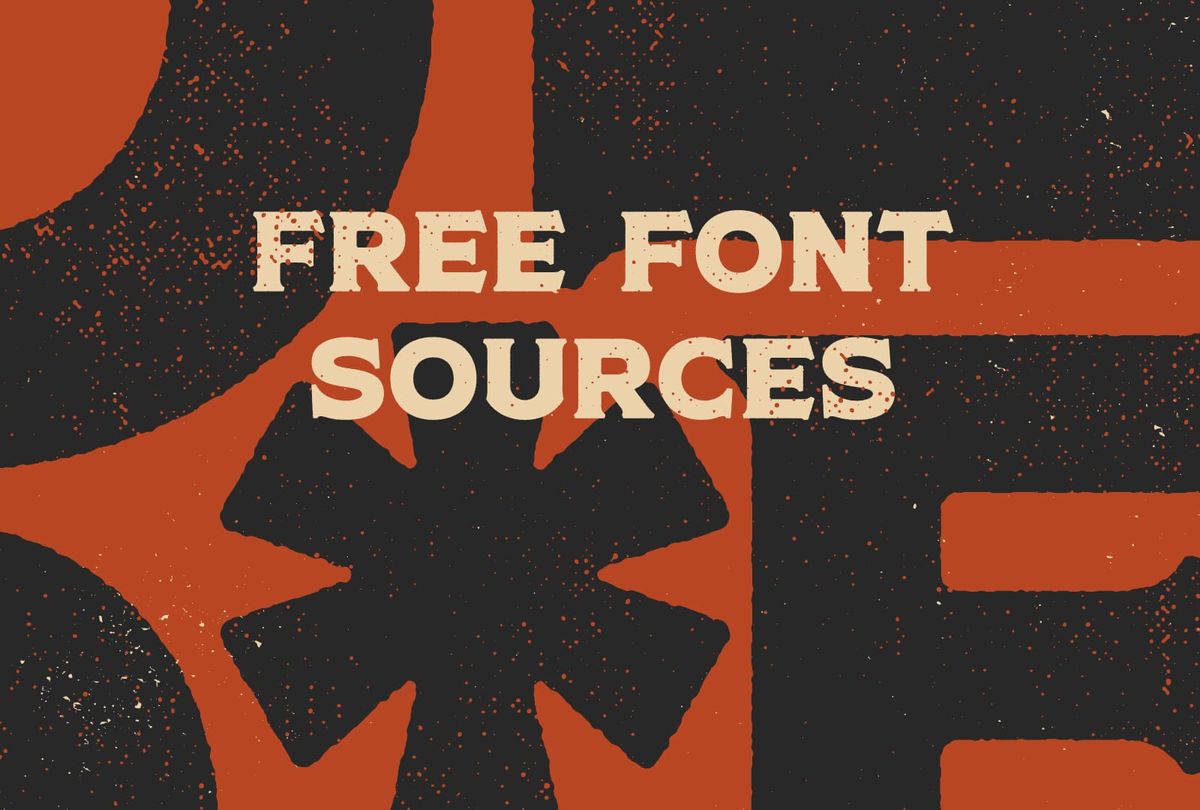
Free Typeface Resources for RPG Designers
Free and open-source typefaces. How to search for them. Where to find them.
What are Fonts vs Typefaces?
Before discussing where to source your fonts, we should address the elephant in the room: Fonts and typefaces mean two different things.
Typefaces are technically what most people call fonts. Times New Roman, Helvetica, and Comic Sans are examples of typefaces. They are a set of glyphs (letters, numbers, and symbols) with the same visual design, style, and construction.
Fonts are variations within a typeface. Some typefaces have only one version, but most have multiple, like bold, italic, heavy, medium, and more. Sometimes, they're represented by a number, which indicates weight. There's no standard system across type foundries (the companies and studios that make typefaces), so font names, weights, and descriptions are all relative.
Does the difference matter?
Don't worry if you mistake one thing for another. Only the most pedantic designers will pretend not to understand you. Most people say "font" because word processors made that the default term. I know hundreds of designers, for example, who do amazing work and don't know the difference.
Ultimately, you don't have to either. If someone corrects your vocabulary, you don't have to take them seriously because it's not a serious issue.
However, knowing the difference can help you in search engines. Everyone uses the word "fonts." Type that word into Google, and you'll get all the terrible cut-and-paste websites you can stomach. Type in "typeface," and the quality suddenly improves. Use expert vocabulary, and you'll get expert sources.
Similarly, you might get better results by searching for "open-source" typefaces. That is the term foundries and type designers use to describe their freely available, royalty-free typefaces.
Beware DaFont and Font Squirrel
I see these two archives recommended often. My advice: don't start with them. Sure, they offer thousands of free typefaces, but there are better, more ethical sources for typefaces. Here's why you shouldn't use either of those two websites:
- Quality is low. Most of the typefaces on DaFont and Font Squirrel are rubbish. There's no quality assurance except popularity—and that popularity game emerges from an audience that isn't critical of typography or representative of who you're likely making games for.
- Functionality is narrow. Many typefaces on these websites lack language support for non-English languages and are resource-intensive on your computer. Even if these issues are irrelevant to you, by using their typefaces, you risk hurting Future You if your game becomes popular.
- Theft is rampant. Some typefaces are original. Others are counterfeit duplicates of someone else's work. Best case scenario: you're stealing from one of the typeface monopolies like Monotype. More likely, you're using a typeface made by someone who lives in a small apartment and budgets for groceries. DaFont and Font Squirrel do not work hard enough to prevent this.
Better Alternatives
Google Fonts provides computer and web fonts, including free and open-source font families. It also offers an interactive web directory for browsing the library and APIs for using the fonts via CSS and Android.
Adobe Fonts. Not technically free. However, if you have an Adobe subscription, you're already paying for it. It's easily one of the highest-quality databases out there, and the usage rights are fairly permissive, too.
Use & Modify. Curated by the site's owner, Raphaël, this website is a treasure trove of typefaces from all over the internet. What makes it special is that you can narrow your search by author, license, and keywords.
Open-Foundry. A popular platform that curates open-source typefaces to highlight their beauty, activate ideas, and encourage exploration. It's explicitly open-source, which makes it a reliable place despite occasional dips in quality.
Free Faces. Another curated collection of typefaces from across the internet. I like that it links to the source rather than hacking off the origins and leaving you with a download link.
Uncut. A free typeface catalog focusing on somewhat contemporary type. I like the transparency around privacy and sourcing.
Type Foundries
Velvetyne. Famous for its wild, gonzo, and experimental typefaces. They range from brilliant to "I dare you to use this!" You probably won't find as many typefaces for your body text on this website, but this is the place for display typefaces. There isn't a single font in this foundry that's boring.
The League of Movable Type. The first open-source type foundry. High-quality, well-supported, and surprisingly fresh—I have nothing but good things to say about the League.
Tunera Type Foundry. Fun, funky, and fresh. I love the variety here. You can find type for a range of projects, from the elegant to the positively goofy. This Libre Type Foundry is new for me (Thanks for the lead, Emmuel!)
Final Thoughts